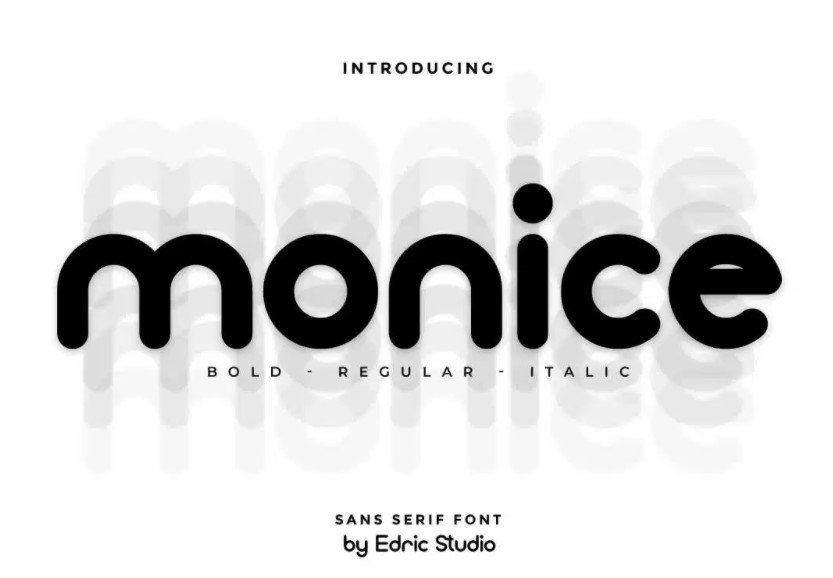
Hi, we are bringing another cool and great stuff with you that is Monice Font which is a high-quality modern typeface that can workable for all casual styles. This is an elegant and stylish typeface that comes with simple and clean readable characters to work.
This is an average typeface for all kinds of designs. It will give you the best reviews after creating the perfect designs. Any design looks good and perfect when created by using simple and clean typography.
Any designers easily adjust with this typeface because of its popularity around the world and its eye-catchy and attractive designing layouts which will push to use it onces for designing any graphic works.
View Of Monice Font
This is a great rounded typeface which is great to use with shrikhand font having awesome features and looks that will give you the perfect look and feel. You can utilize in your all types of projects for free.
This is a truly amazing and eye fascinating typeface that is great to use in that projects require the best designs, look, and feel. You can achieve what you want easily just with it. It is great to use with megrim font.